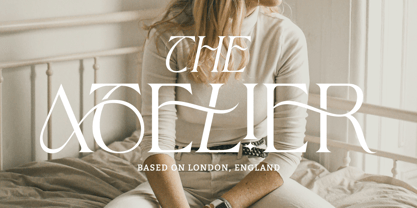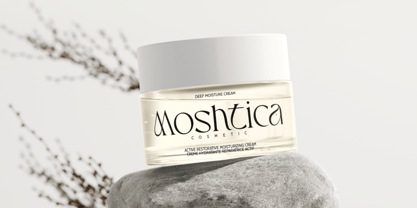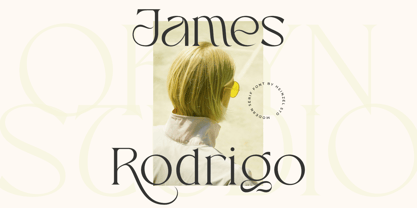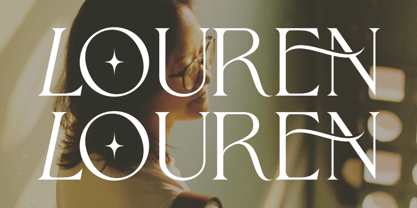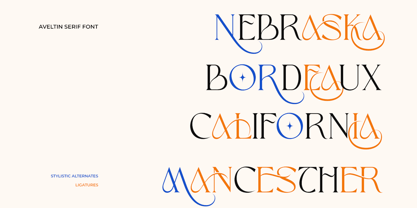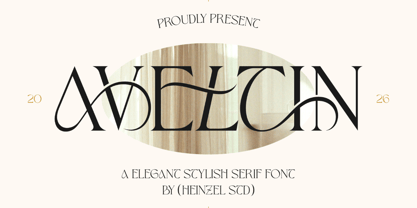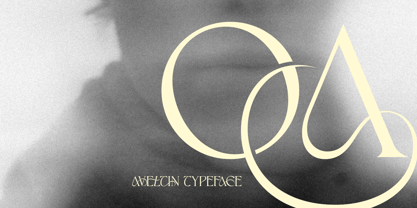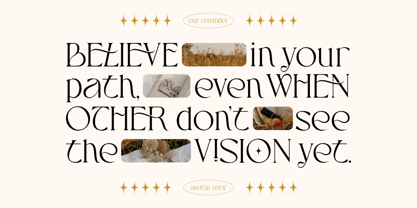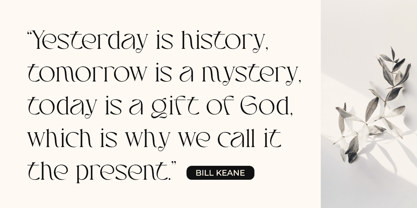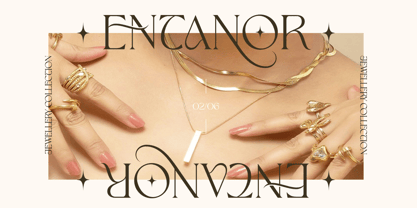
Aveltin
by Heinzel Std
The Aveltin Font Family was designed by Nofi Sofyan Hadi and published by Heinzel Std. Aveltin contains 2 styles and family package options.
Aveltin is a refined and modern serif font that blends timeless elegance with artistic flair. Designed with high contrast strokes and graceful curves, Aveltin stands out through its unique letterforms, making it perfect for luxury branding, editorial layouts, fashion headlines, and sophisticated logo design. What makes Aveltin truly distinctive is its stylish ligatures and beautifully crafted stylistic alternates, allowing designers to create expressive and customized typography with ease. Each character flows seamlessly, offering a harmonious balance between classic serif tradition and contemporary design trends. With its eye-catching details and elegant personality, Aveltin Serif is ideal for projects that demand a premium and stylish aesthetic—whether it's for magazines, wedding invitations, packaging, or high-end branding.